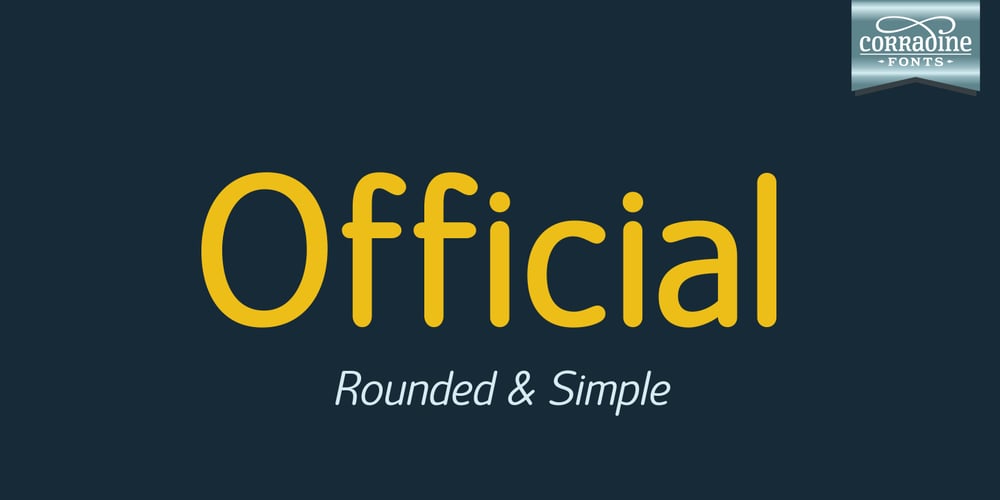
Official
Official font
Official Font Family was designed by Manuel Eduardo Corradine and published by Corradine Fonts. Official contains 14 styles and family package options. Official is a very clear and legible font family of 14 fonts. Its simplicity makes Official an ideal style to use in any project you could imagine.